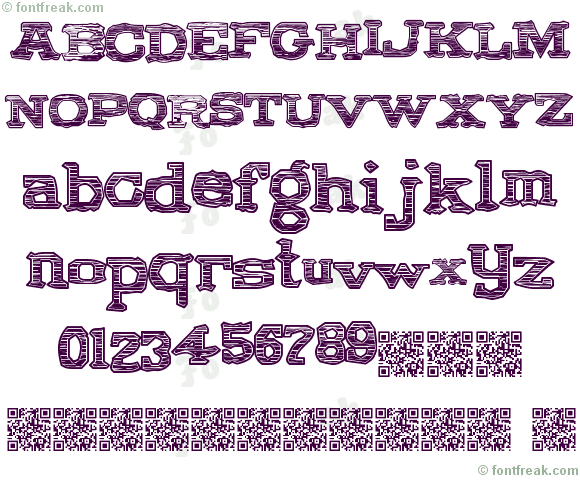
ColdBrew
About ColdBrew
ColdBrew by Xerographer Fonts is a distinctive display typeface that captures a unique blend of modern aesthetics and playful charm. Released in 2013, this font features a bold, hand-drawn style that is characterized by its irregular stroke weight and whimsical curves, giving it a casual yet eye-catching appearance. The font exhibits a moderate contrast in thickness, which enhances its visual appeal, while the unique spacing between characters adds to its playful nature. Decorative elements, reminiscent of organic textures, contribute to its artistic flair, making it stand out in a crowded typography landscape.
The ColdBrew font is particularly well-suited for a variety of creative applications. It shines in wedding invitations, where its informal elegance can create a warm and inviting atmosphere. Additionally, it works exceptionally well for restaurant menus, providing a friendly, approachable feel that appeals to diners. Movie posters can also benefit from the font’s bold presence, drawing attention and conveying a sense of fun. Graphic designers will find it perfect for branding projects that aim to convey a laid-back yet stylish vibe, making it ideal for coffee shops, boutiques, and artisanal brands. Content creators looking to add a personal touch to their work will also appreciate the font’s unique character.